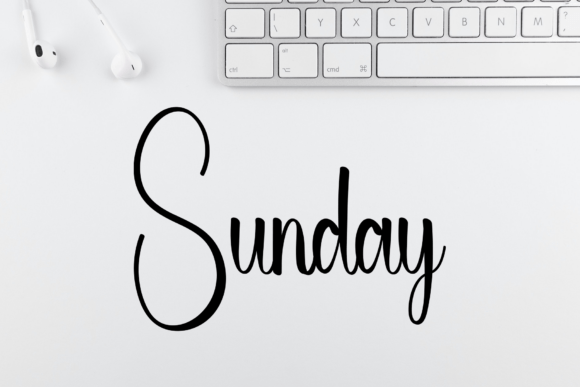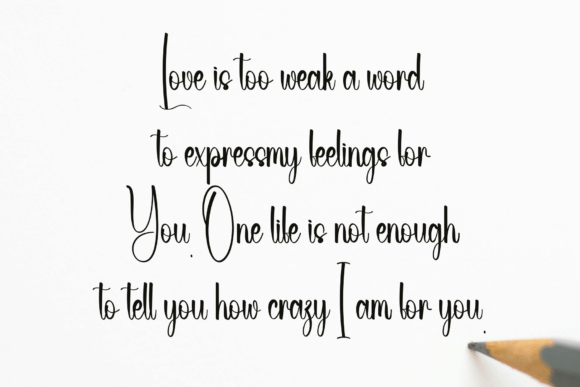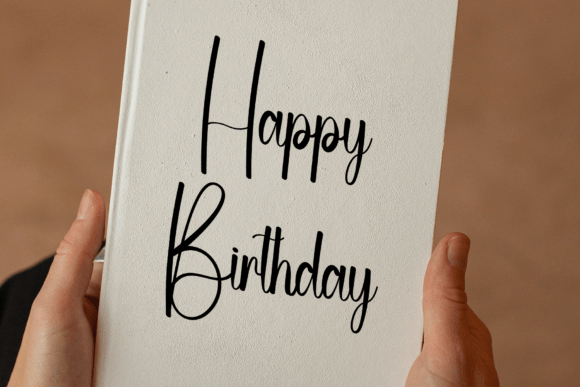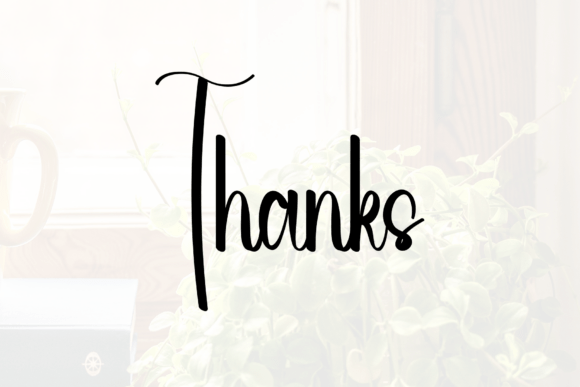
A Heartfelt Touch: Discover the Beauty of Avilantery Font
Have you ever stumbled upon a font that speaks directly to your creative soul? That moment when everything falls into place, and your design vision comes to life? For me, it was the first time I laid eyes on the Avilantery Font. Its whimsical charm and organic feel instantly captured my attention, and I knew I had to learn more.
The Avilantery Font is a beautifully crafted handwritten font, designed to evoke a sense of heartfelt perfection. Its smooth strokes and organic lines create a relaxed atmosphere, making it perfect for a variety of design projects, from branding and invitations to social media graphics.
As a designer, having the right font can make all the difference in bringing your vision to life. The Avilantery Font is a valuable addition to any design arsenal, offering a unique and timeless touch that’s sure to leave a lasting impression.
Avilantery Font Key Features
- Unique Characteristics: Avilantery Font features a modern, elegant design with a unique blend of geometric and organic elements, resulting in a distinctive and sophisticated look.
- Kerning and Ligatures: Avilantery Font includes advanced kerning and ligature pairs, ensuring smooth text rendering and professional-looking typography.
Avilantery Font Review
Overall, I found Avilantery to be a decent font option, but it didn’t blow me away. Here are some of its strengths and weaknesses.
- The Avilantery font has a unique and elegant feel to it. It’s perfect for creating a sophisticated and high-end look.
- The font is highly legible, even at smaller sizes, making it suitable for body text.
- The font family includes a wide range of weights and styles, offering flexibility for various design needs.
- The Avilantery font can feel a bit generic and overused, which might make it less effective for unique branding.
- The font’s elegance can also make it feel a bit too formal or even stuffy in some contexts.
- The font family is not ideal for display text, as the bold weights can be a bit too ornate.
While Avilantery is not a bad font choice, it’s not particularly memorable or exciting either. If you’re looking for a solid, elegant font for a specific project, it might be worth considering. However, if you want to make a bold statement or create a unique brand identity, you might want to look elsewhere.
Avilantery Font works well for creating eye-catching headings and titles in Canva.
Avilantery Font is ideal for creating custom typography in Photoshop or Illustrator.
Avilantery Font is perfect for adding a touch of elegance to your presentations and documents.
Avilantery Font is ideal for:
- Creating eye-catching headings and titles.
- Adding a touch of elegance to presentations and documents.
- Designing custom typography for logos and branding materials.
Alternatives to Avilantery Font for Designers
Great Vibes is a modern script font that is perfect for creative and artistic projects. It is ideal for use in headings, titles, and other text elements where a unique and eye-catching font is needed. Great Vibes has a similar flowing and cursive feel to Avilantery Font, but with a more relaxed and casual tone.
Comparison: Great Vibes has a more relaxed feel compared to Avilantery Font, which can be more elegant and refined. Great Vibes is also more suitable for casual and creative projects, while Avilantery Font is more versatile and can be used in a wider range of projects.